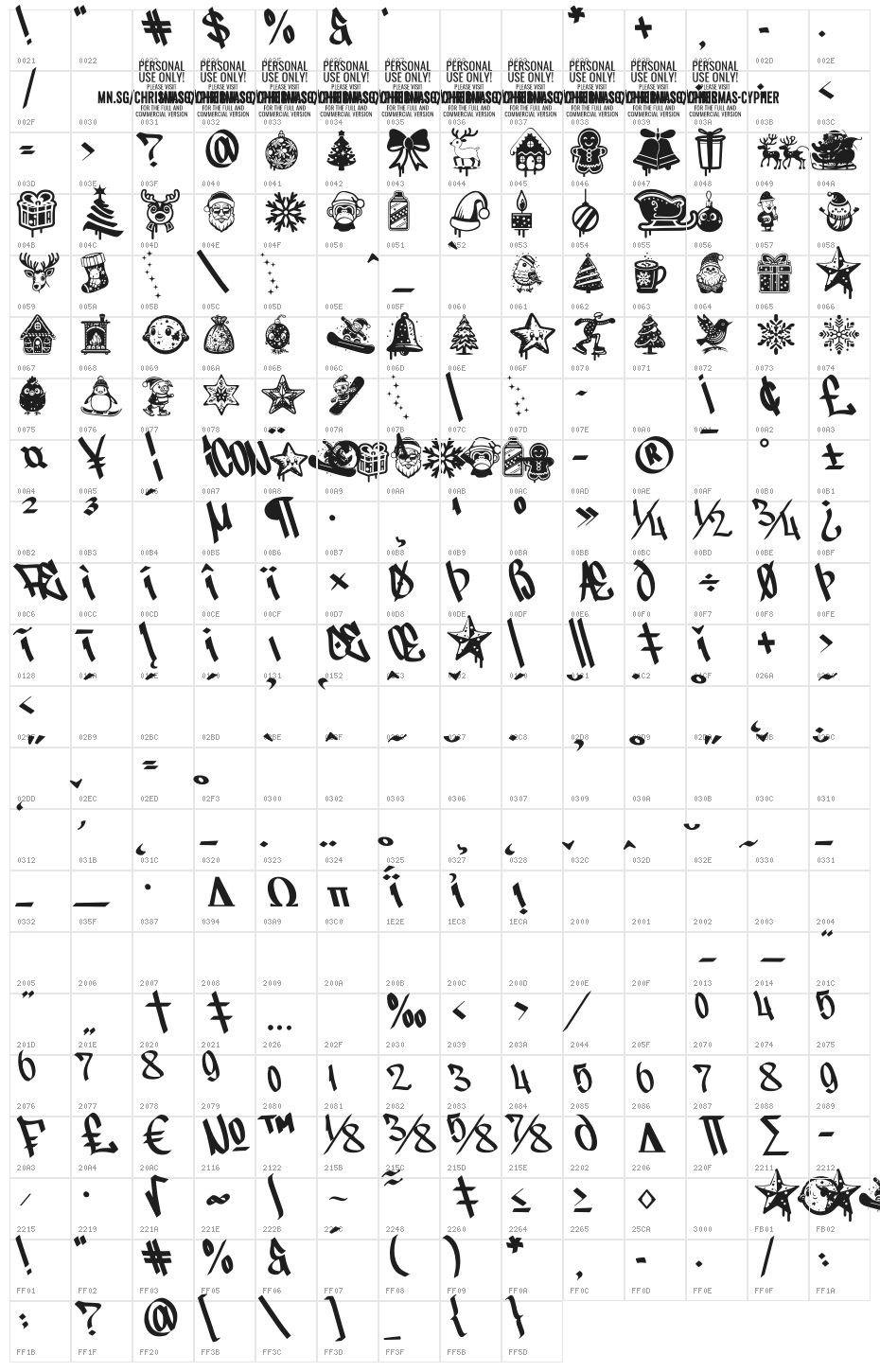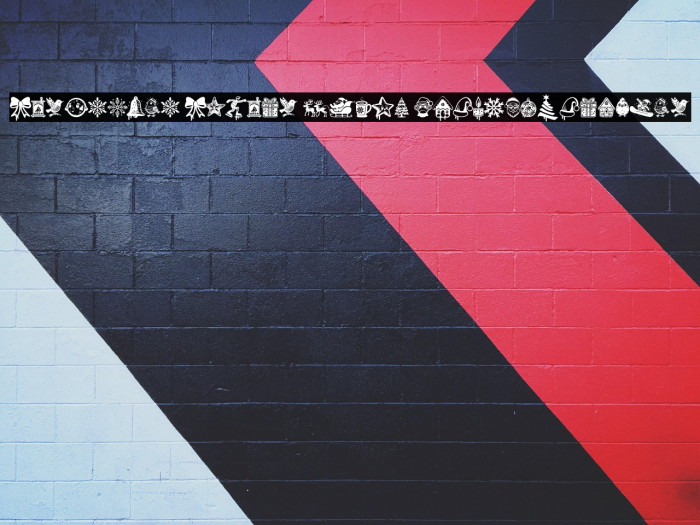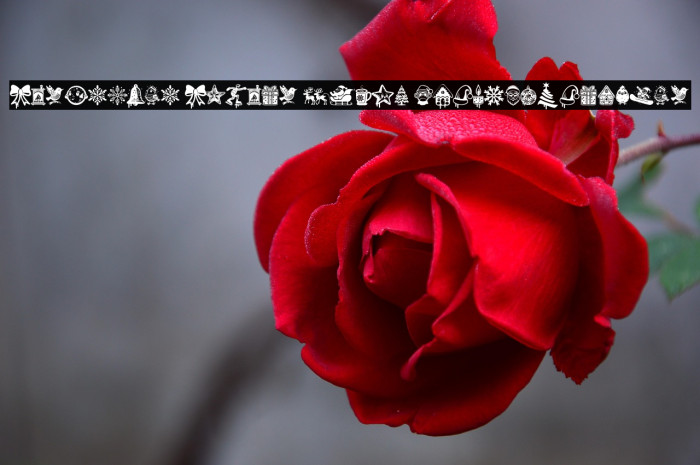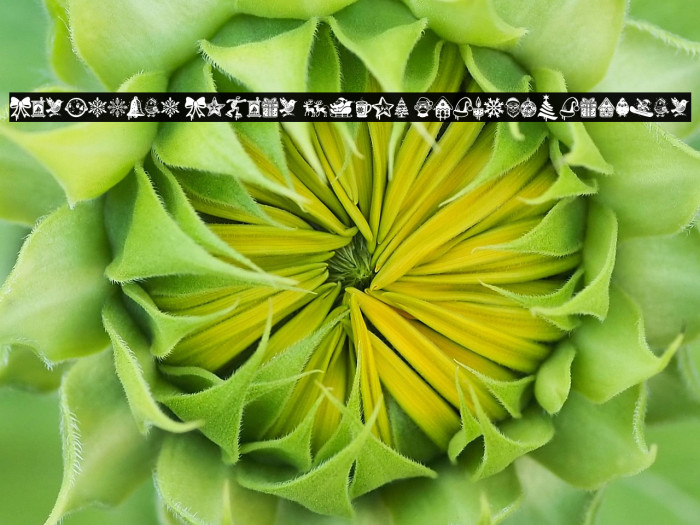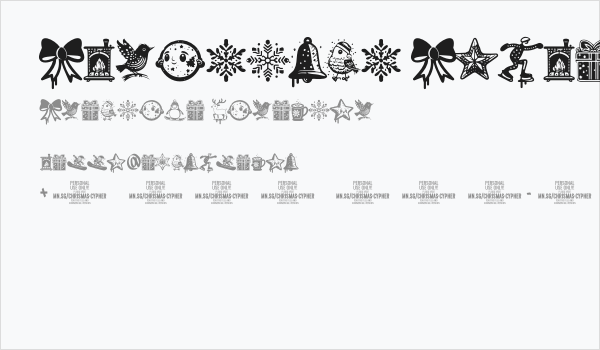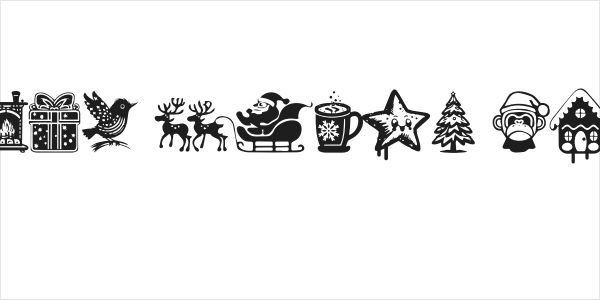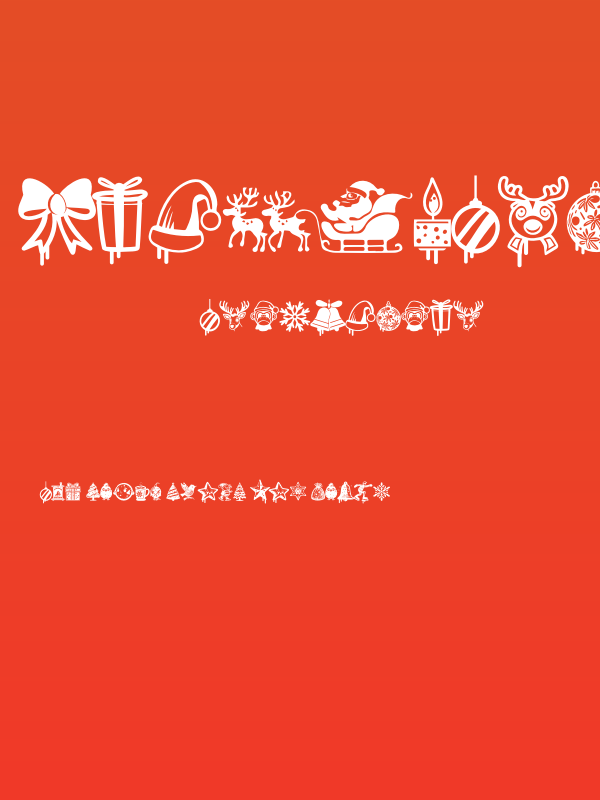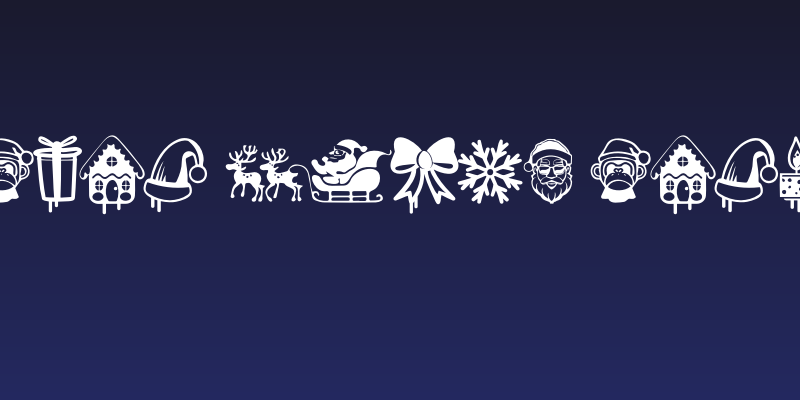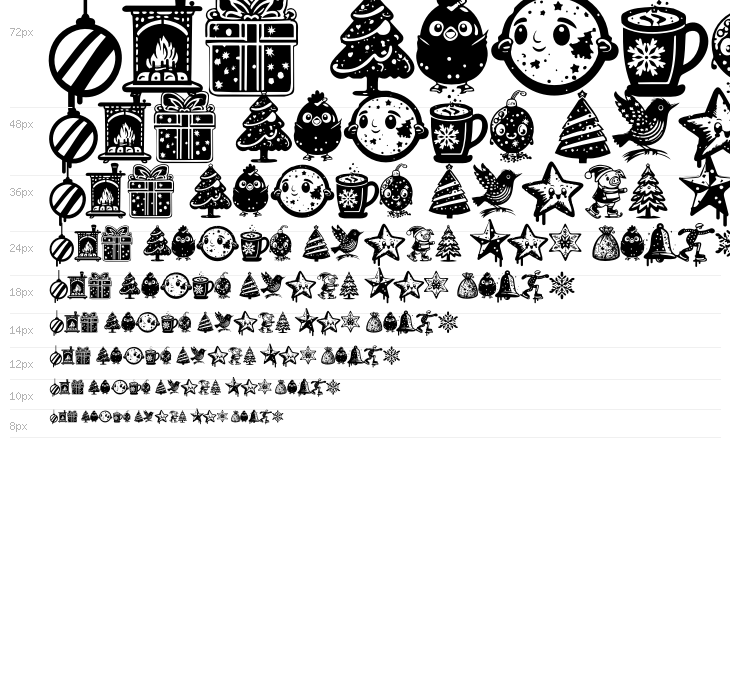
Christmas Cypher Icon PERSONAL Regular Font
Christmas Cypher Icon PERSONAL Regular Description
This decorative font features a delightful array of Christmas-themed icons, each intricately designed to capture the festive spirit. The icons include classic holiday symbols such as Santa Claus, reindeer, Christmas trees, snowflakes, and various gift items. Each character is crafted with attention to detail, showcasing a playful and whimsical style that is perfect for holiday-themed projects. The bold outlines and filled shapes make the icons stand out, ensuring they are easily recognizable and visually appealing. The font's design is both charming and versatile, making it suitable for a wide range of creative applications.